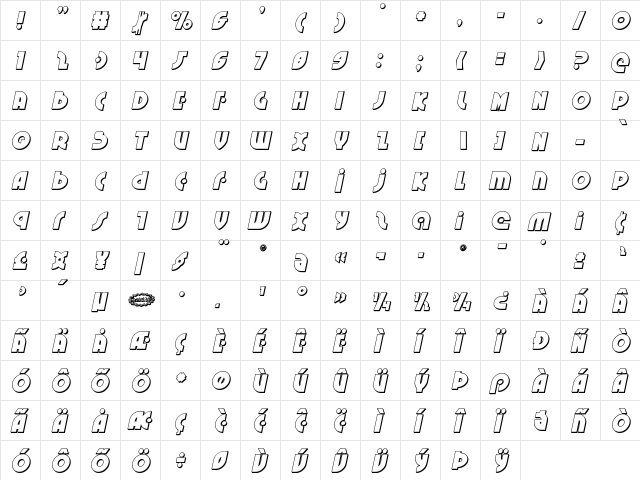
Neuralnomicon 3D Italic Italic
Design Context for Neuralnomicon 3D Italic Typeface
Neuralnomicon 3D Italic is a composed and adaptable typeface that performs quietly and consistently across a wide range of design contexts. Its italic angle brings a sense of urgency and motion to the letterforms.
Pro Tip: Use Neuralnomicon 3D Italic for emphasis, pull quotes, and subheadings where its slanted energy can add rhythm to the layout.